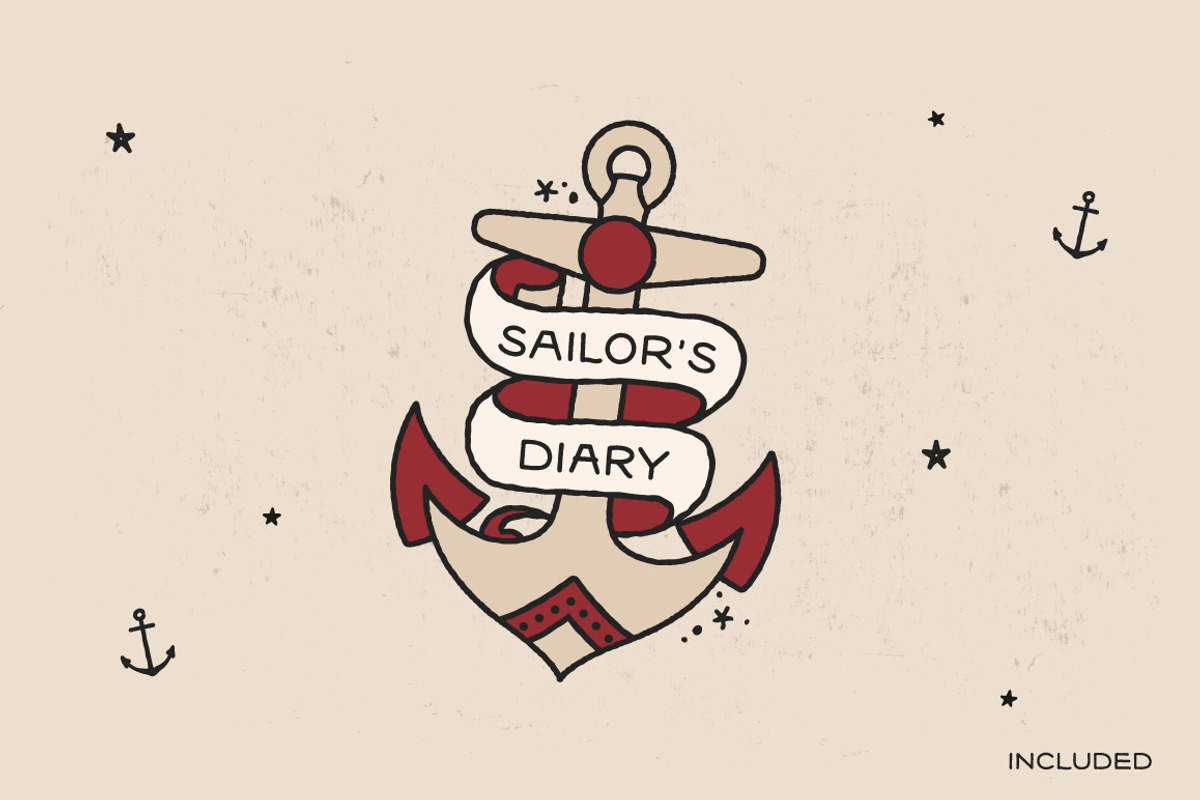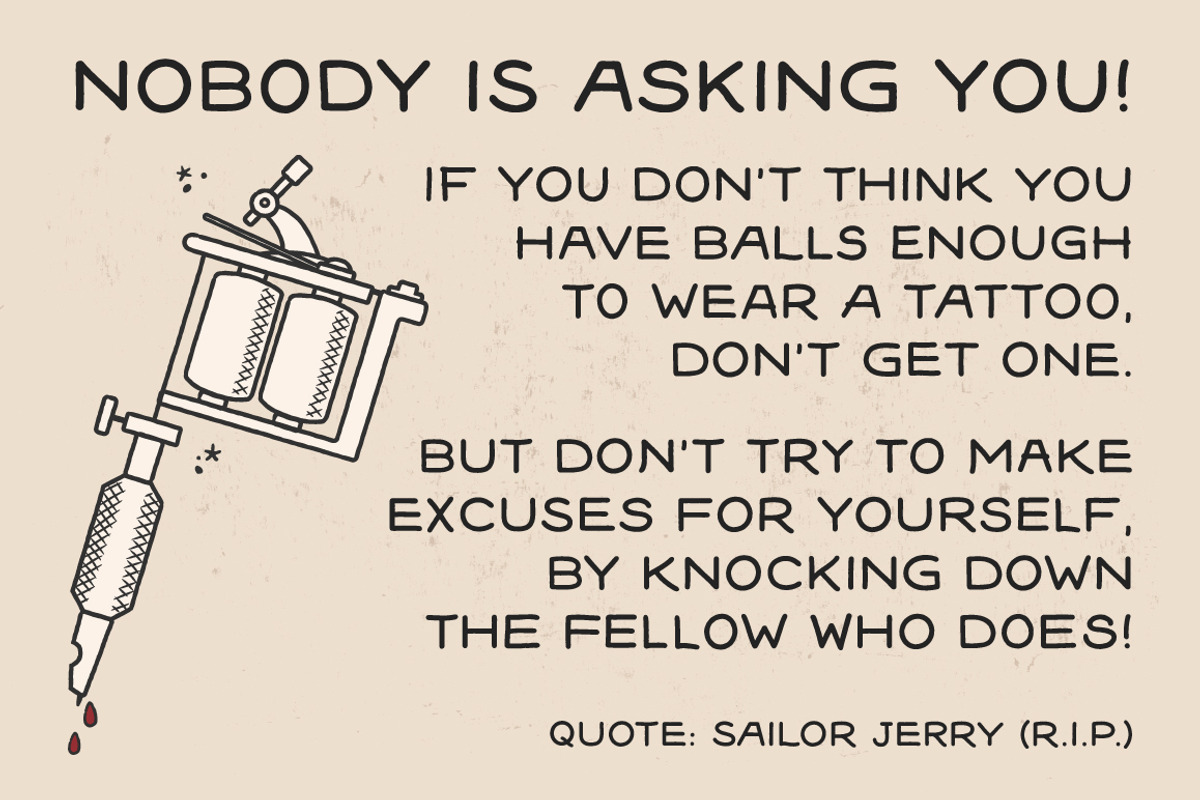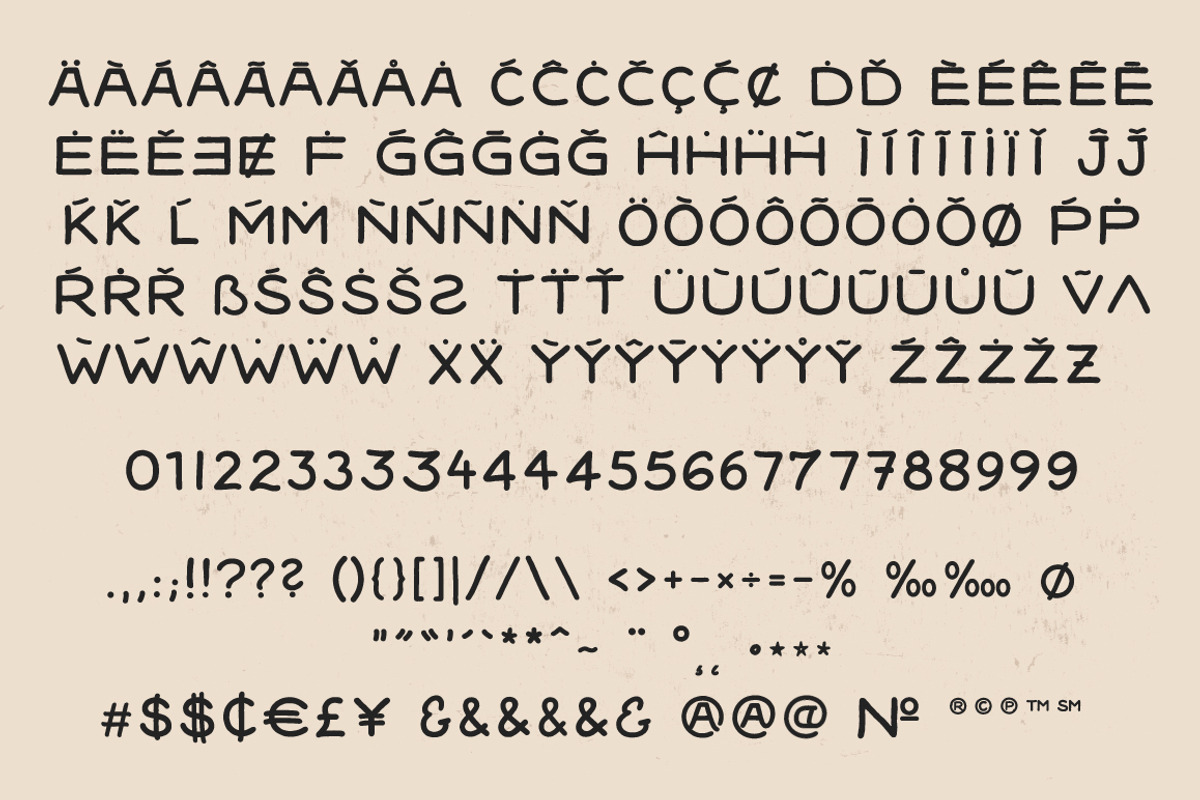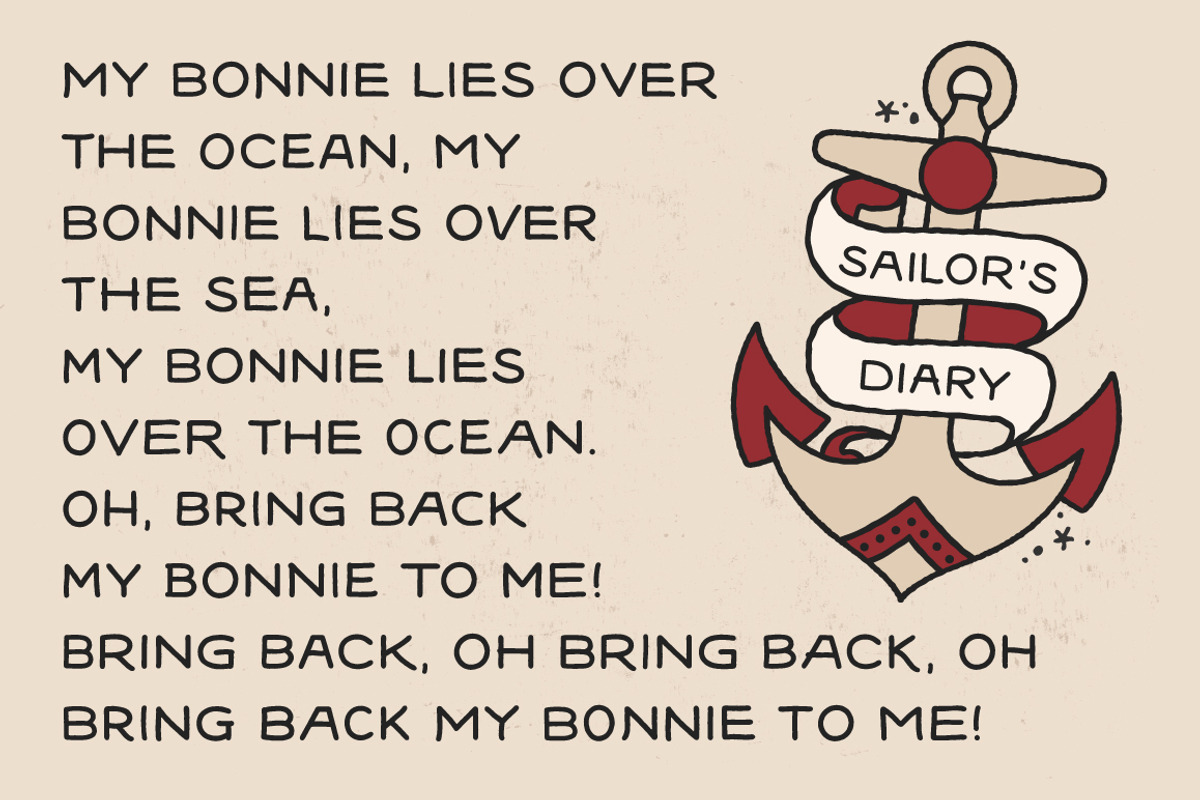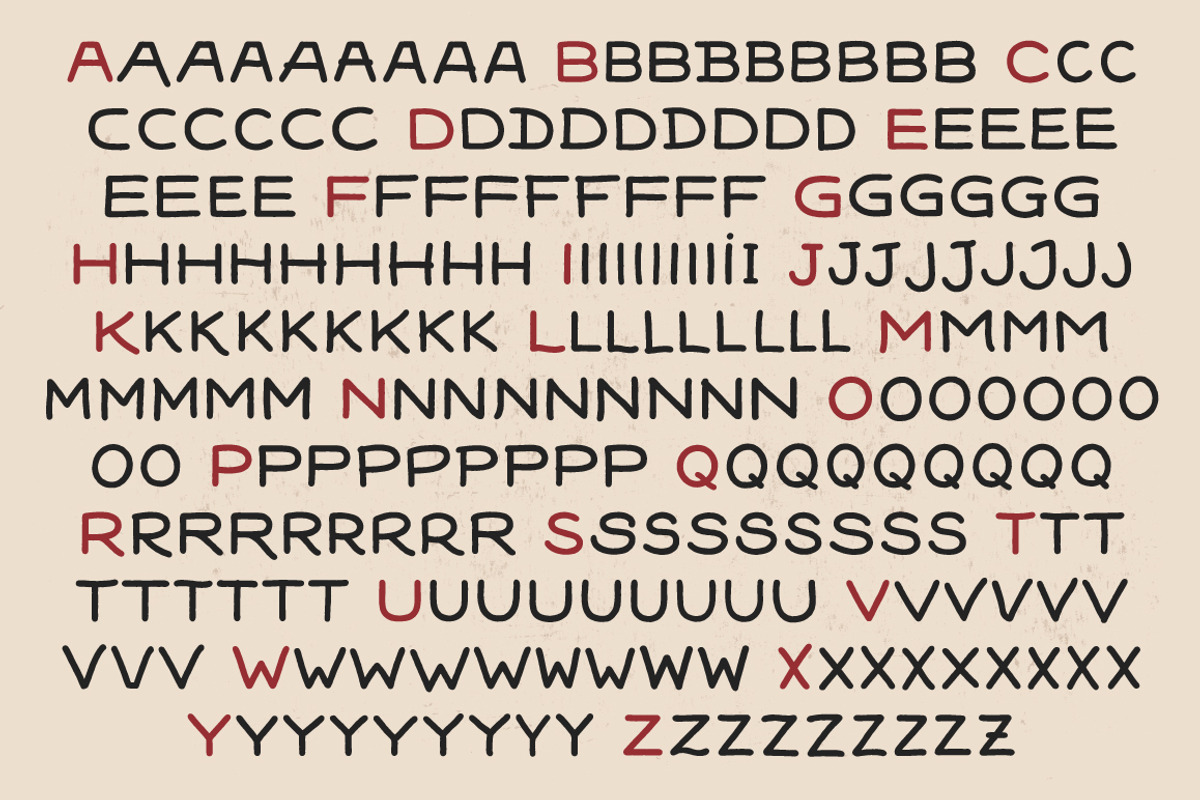
Sailors Diary Tattoo Style Font
Hand Made Tattoo Style Font
This font is ideal for banners and scrolls with traditional tattoo designs or posters with a lot of text. With more than 220 alternate letters and more than 180 special characters, punktuations and their alternates you can give text a real hand written character.
Sailors Diary Tattoo Style Font by BAD TASTE fits naturally into Branding, posters, packaging, typography.